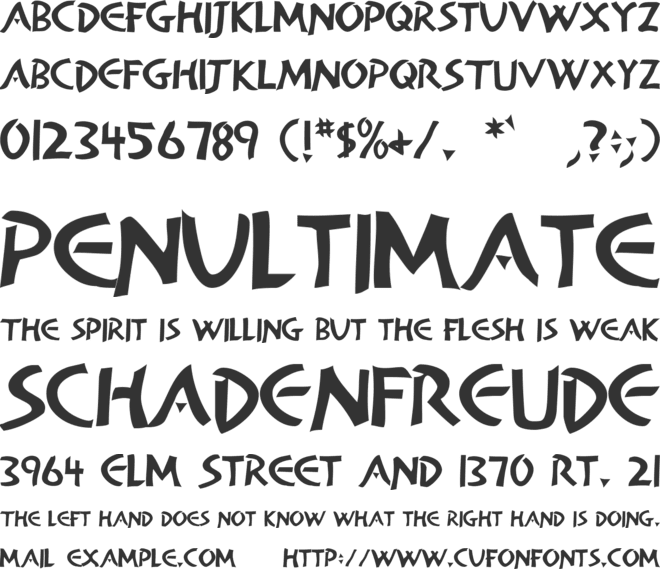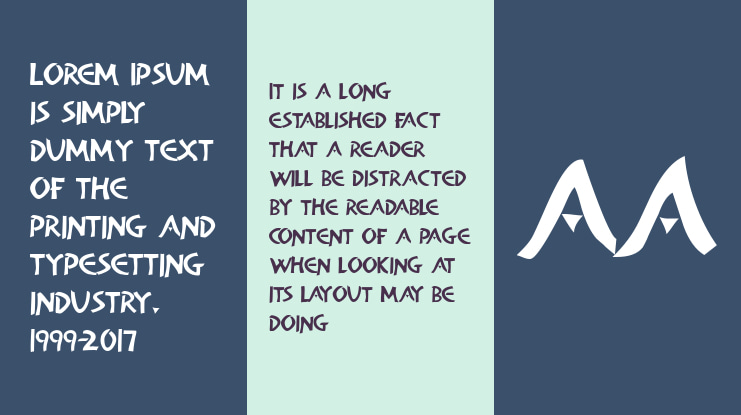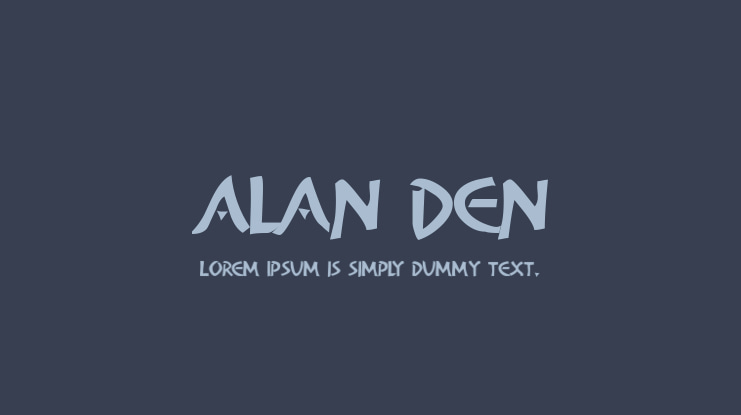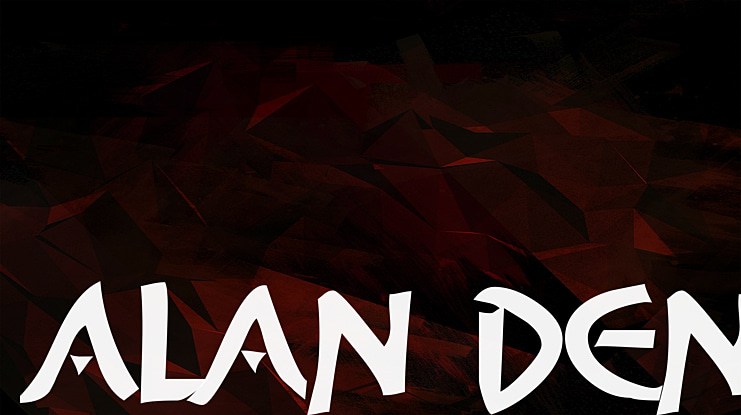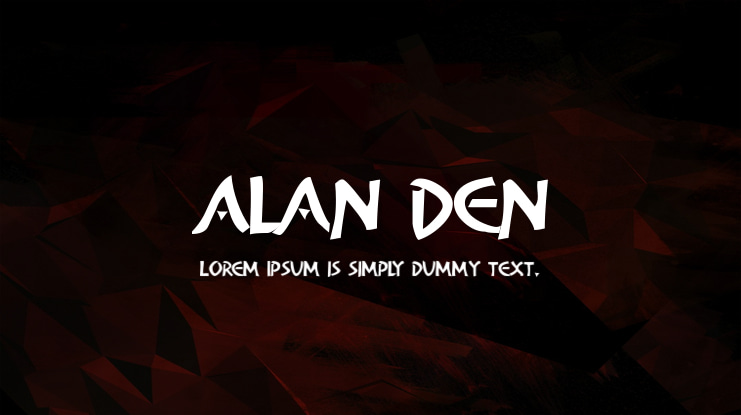
Alan Den Font
This version includes two different versions of upper letters, punctuation, and some international characters. I also included some UA Type dingbats (just to amuse myself, and so you don't get those annoying boxes when you type something that isn't in the font).I enjoy looking at calligraphy. One day I was searching the web for calligraphy, and I came across a cool picture of some lady's work. So I based a font on it. The original letters didn't have a full character set, so I had to come up with those on my own.The original quote that inspired this font was:AlliesAnd EnemiesIn TheOld NorthwestSomehow I derived the name Alan Den from all that.